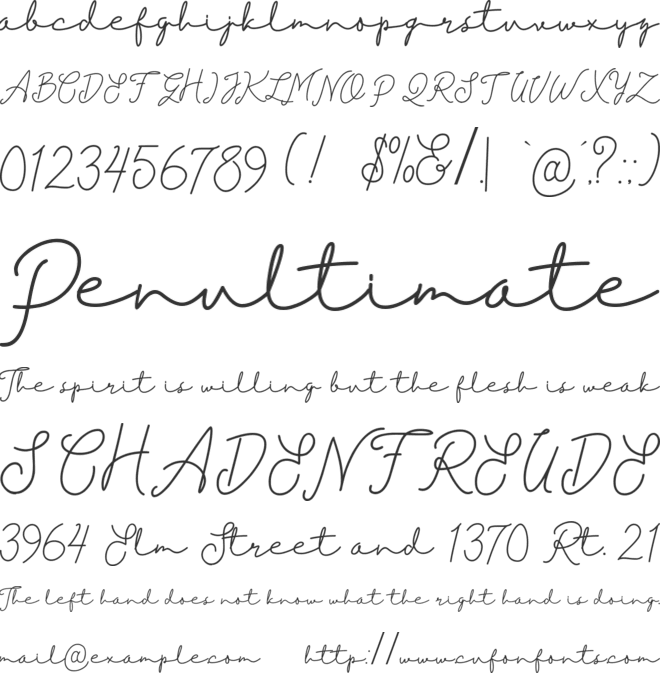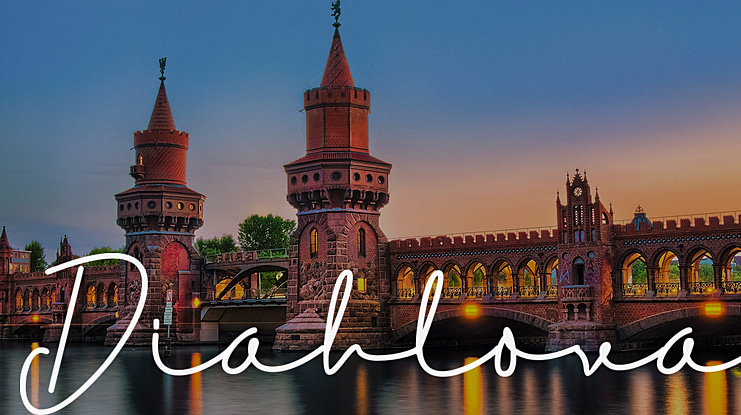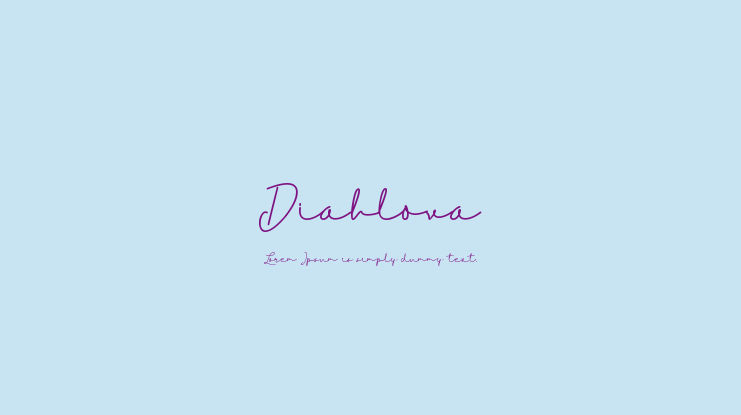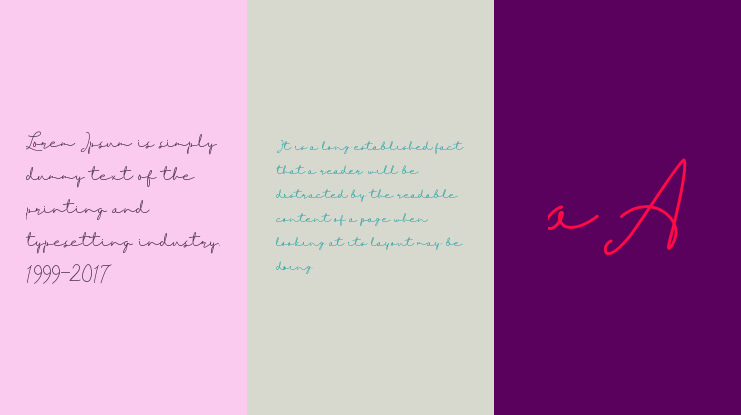
Diahlova Font Family
Azkara Studio Co
Dialova font is a handwritten signature script with a natural & stylish flow. Dialova font of scripts is perfect for personal branding. Dialova is perfect for branding projects, logo, wedding designs, social media posts, advertisements, product packaging, product designs, label, photography, watermark, invitation, and stationery.